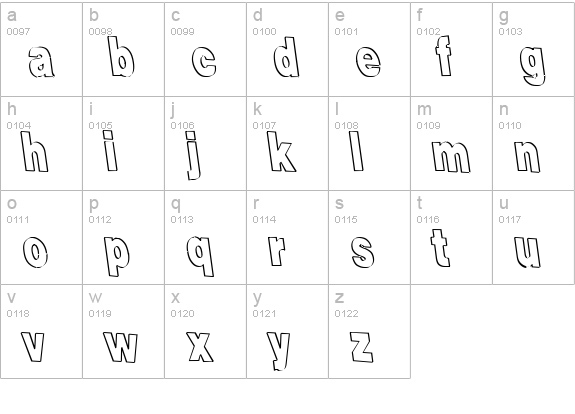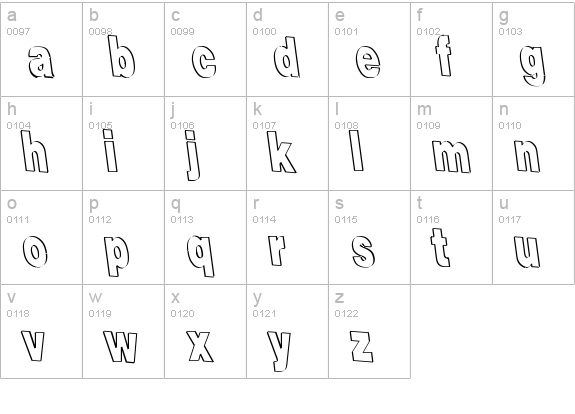
Gamma Scale Font Details
Introducing Gamma Scale font, a striking and versatile typeface that will elevate any design project to new heights. With its bold and contemporary aesthetics, Gamma Scale font is perfect for creating eye-catching headlines, captivating logos, and stunning branding materials. This font embodies a unique fusion of modernity and elegance, making it suitable for a wide range of design applications. Whether you are designing a cutting-edge website, a sleek magazine layout, or a captivating poster, Gamma Scale font will add a touch of sophistication and style to your work. But what sets Gamma Scale font apart from the rest is its accessibility. This outstanding font is not only visually appealing but also freely available to download at FontsMarket.com. Yes, you heard it right - this remarkable font is absolutely free! Now you can enhance your designs with professional-looking typography without breaking the bank. Unleash your creativity and explore the endless possibilities that Gamma Scale font offers. Its clean lines and sharp edges bring a sense of modernity, while its bold presence commands attention. Whether you're designing for print or digital, this font will make your work stand out from the crowd. The versatility of Gamma Scale font knows no bounds. From sleek corporate designs to edgy and artistic projects, this font adapts effortlessly to any style or concept. Its wide variety of weights and styles allows for endless combinations, giving you the freedom to create truly unique and impactful designs. So don't miss out on this incredible opportunity! Download Gamma Scale font for free at FontsMarket.com and let your imagination run wild. Elevate your design game with this exceptional typeface and watch your creations come to life with style and flair.